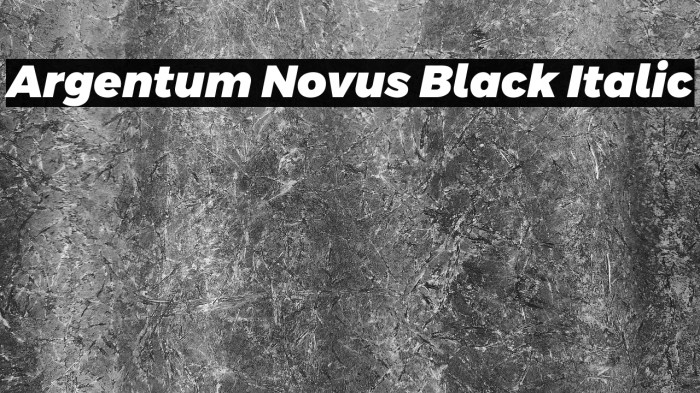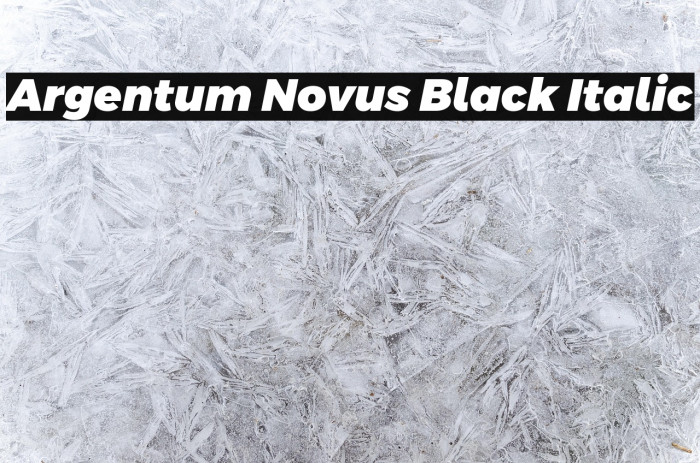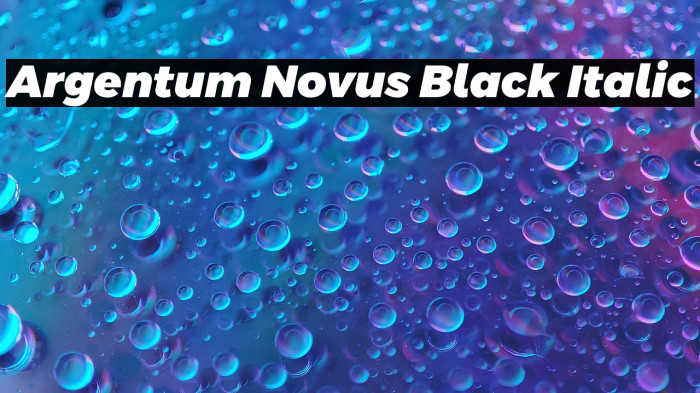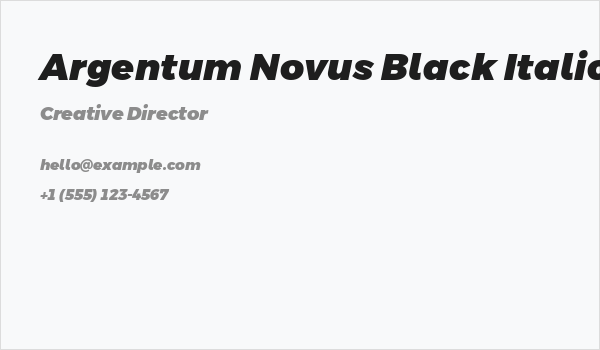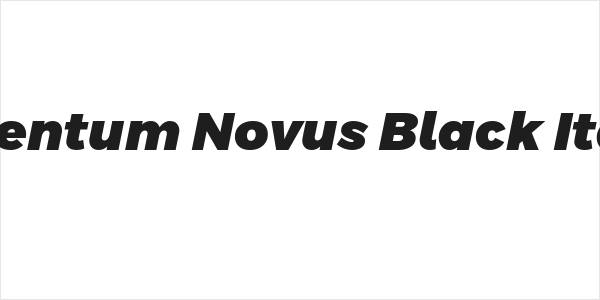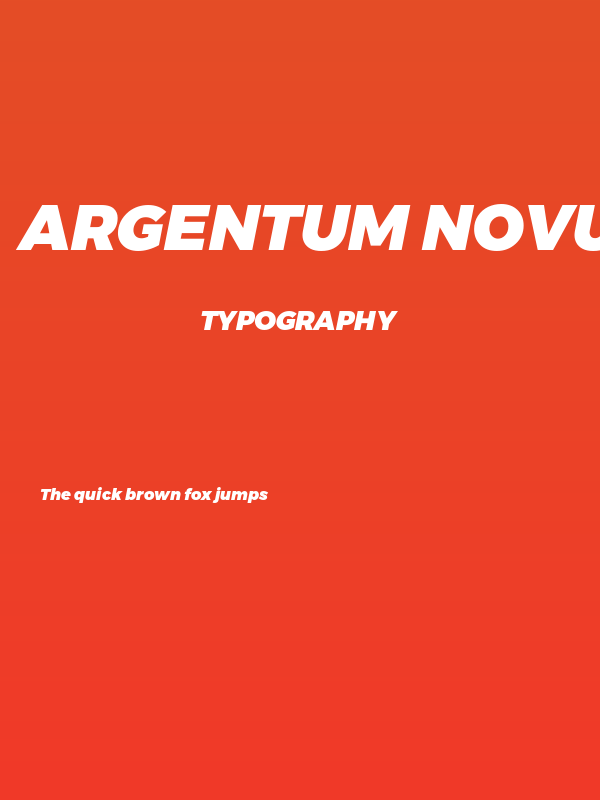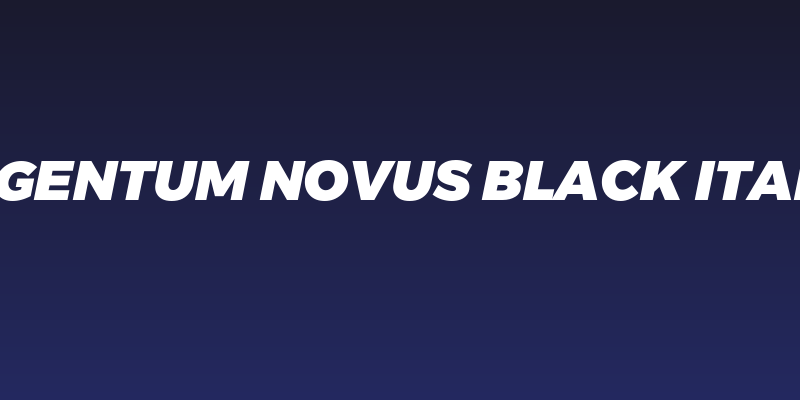
Argentum Novus Black Italic Font
Argentum Novus Black Italic Description
This font exhibits a bold and dynamic presence with its thick strokes and italicized form. The characters are robust and convey a sense of strength and assertiveness. The uppercase letters are particularly striking, with a slight slant that adds a sense of motion and energy. The lowercase letters maintain this boldness while offering a more compact form. The numerals are equally bold, ensuring readability and impact. Special characters are designed with the same emphasis on thickness and slant, making them stand out. Overall, this font is designed to capture attention and convey a message with confidence.
| Use Case | Headlines, Logos, Advertising |
| Proposed Projects | Ideal for branding, advertising, headlines, and any project requiring a strong visual impact. |